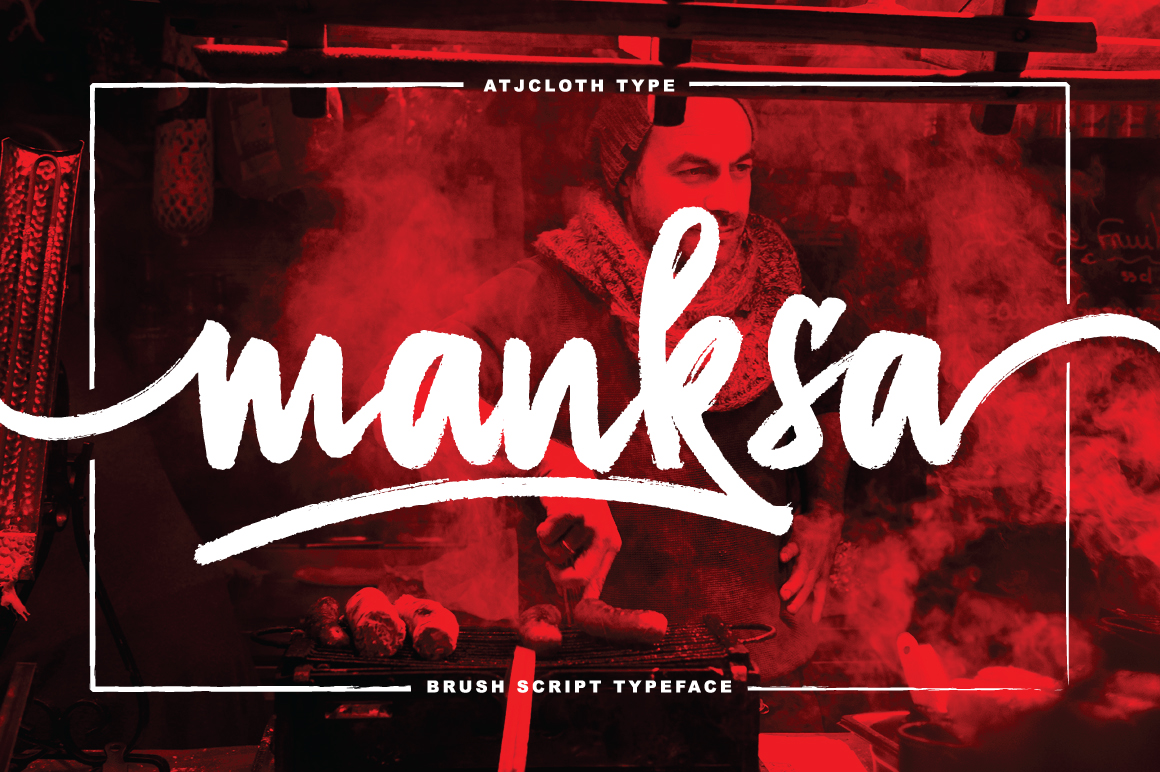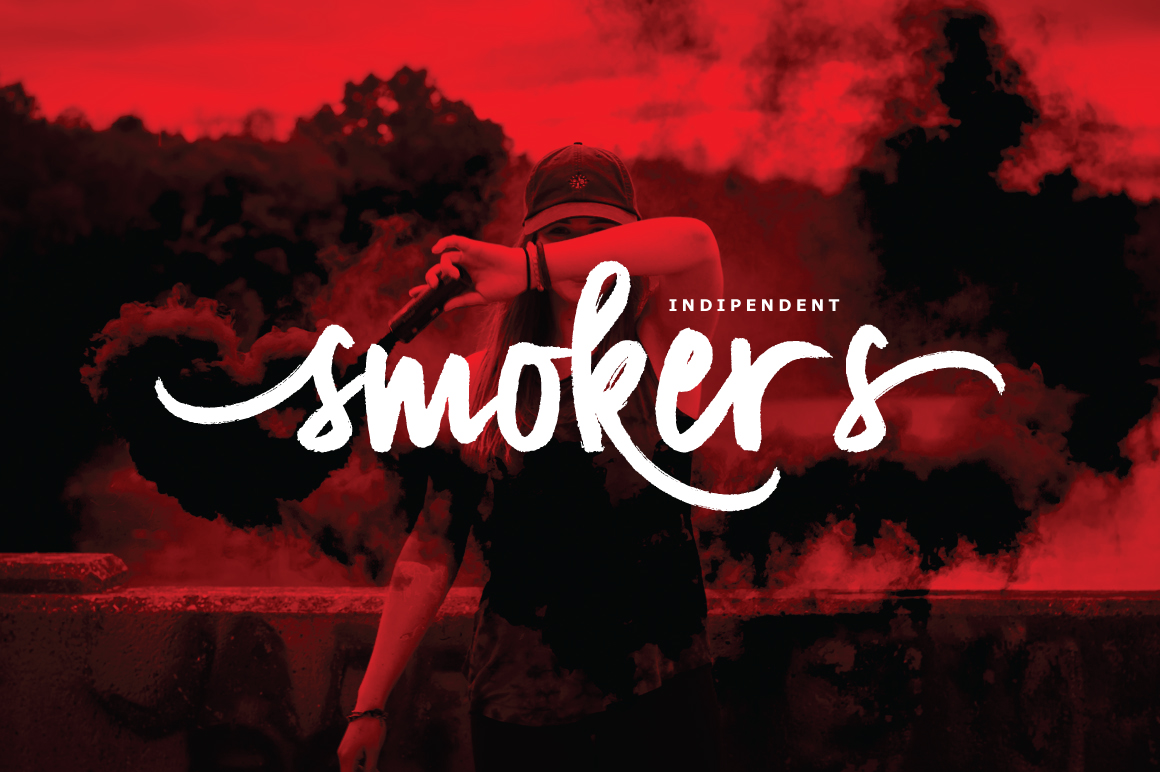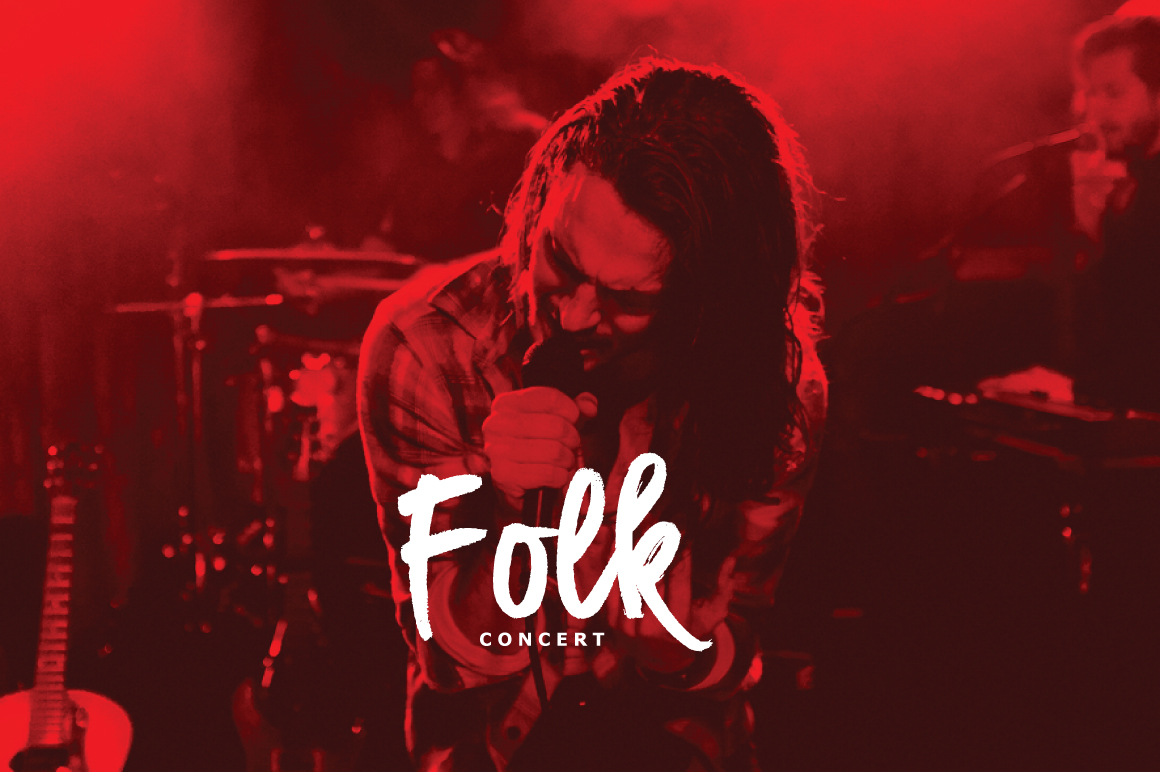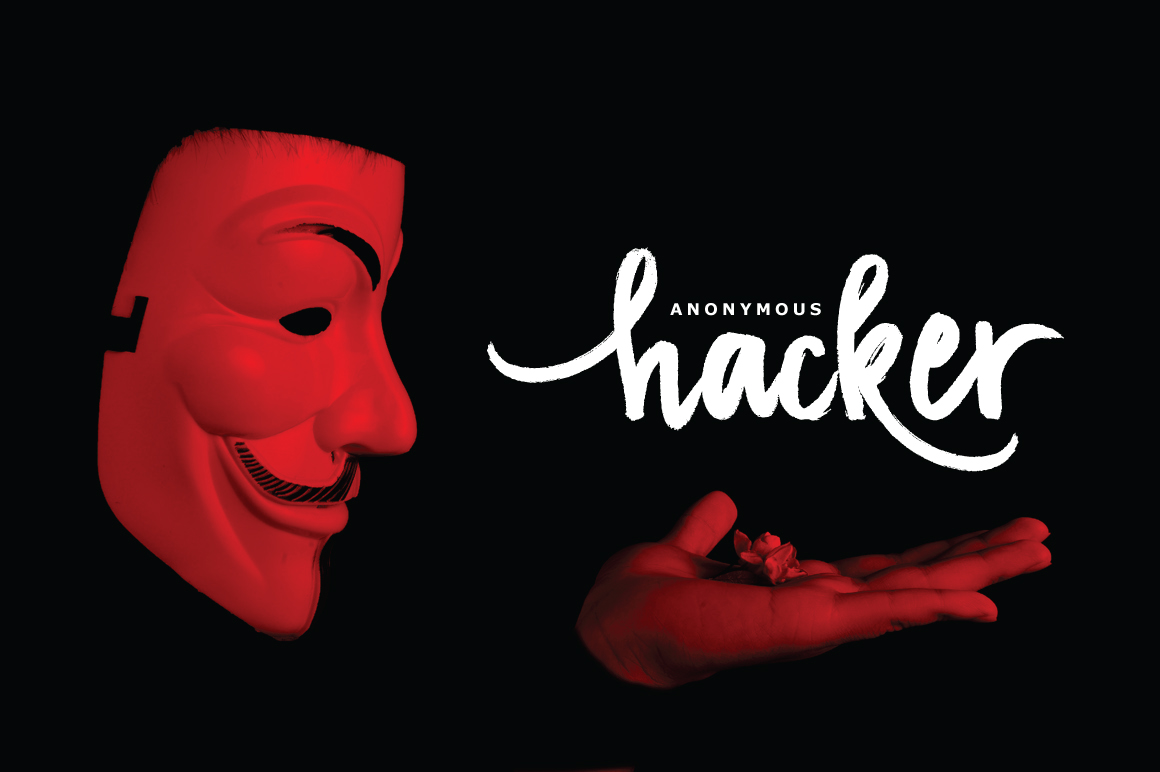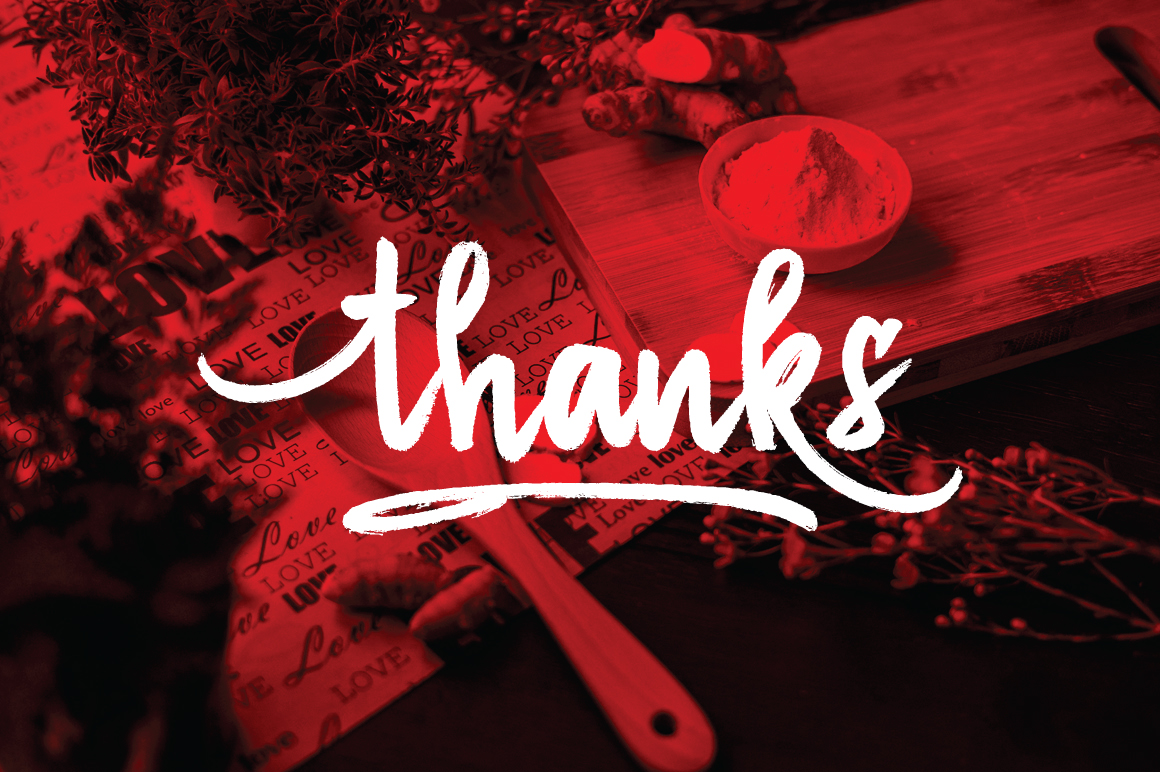
Manksa Font
About Manksa Font
Manksa is a textured brush font that works great on designs that need to be expressive and leave an impression.
The Manksa Typeface includes a complete set of uppercase and lowercase letters, alternate letters, numbers, punctuation, and ligatures.